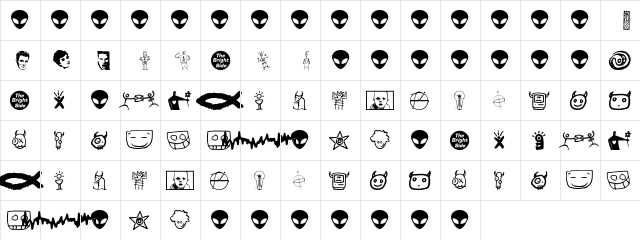
BrightSide Regular
Design Context for BrightSide Typeface
BrightSide is a composed and adaptable typeface that performs quietly and consistently across a wide range of design contexts.